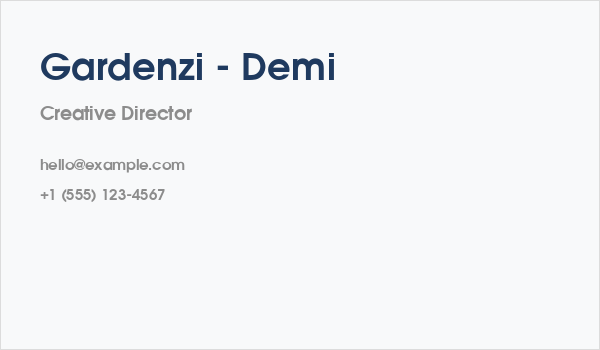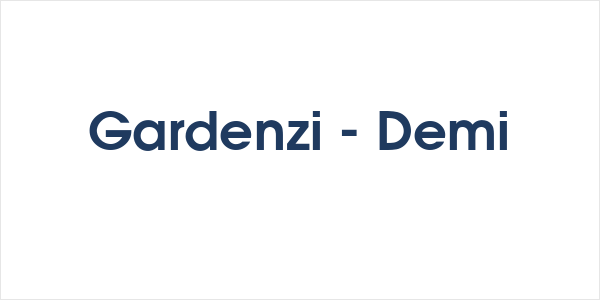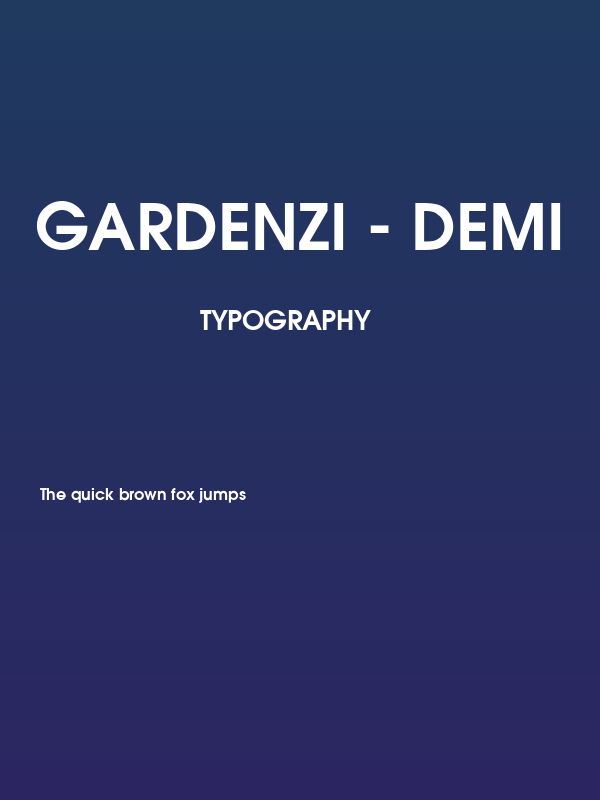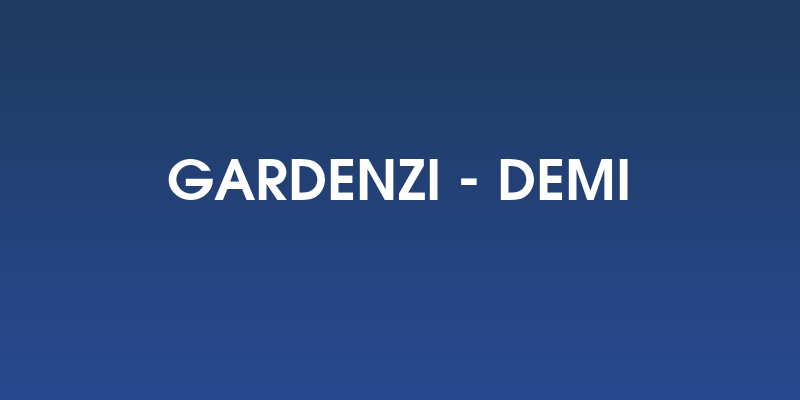
Gardenzi - Demi Font
Gardenzi - Demi Description
This font features a clean and modern aesthetic with a balanced structure that combines elegance and readability. The characters are well-proportioned, with a slight geometric influence that adds a contemporary touch. The uppercase letters are bold and assertive, while the lowercase letters maintain a smooth and consistent flow. The numerals are clear and distinct, making them suitable for various applications. The special characters are designed with precision, ensuring they complement the overall style. This font is versatile, offering a professional look suitable for both digital and print media.
| Proposed Projects | Ideal for branding, editorial design, advertising, and digital interfaces. |